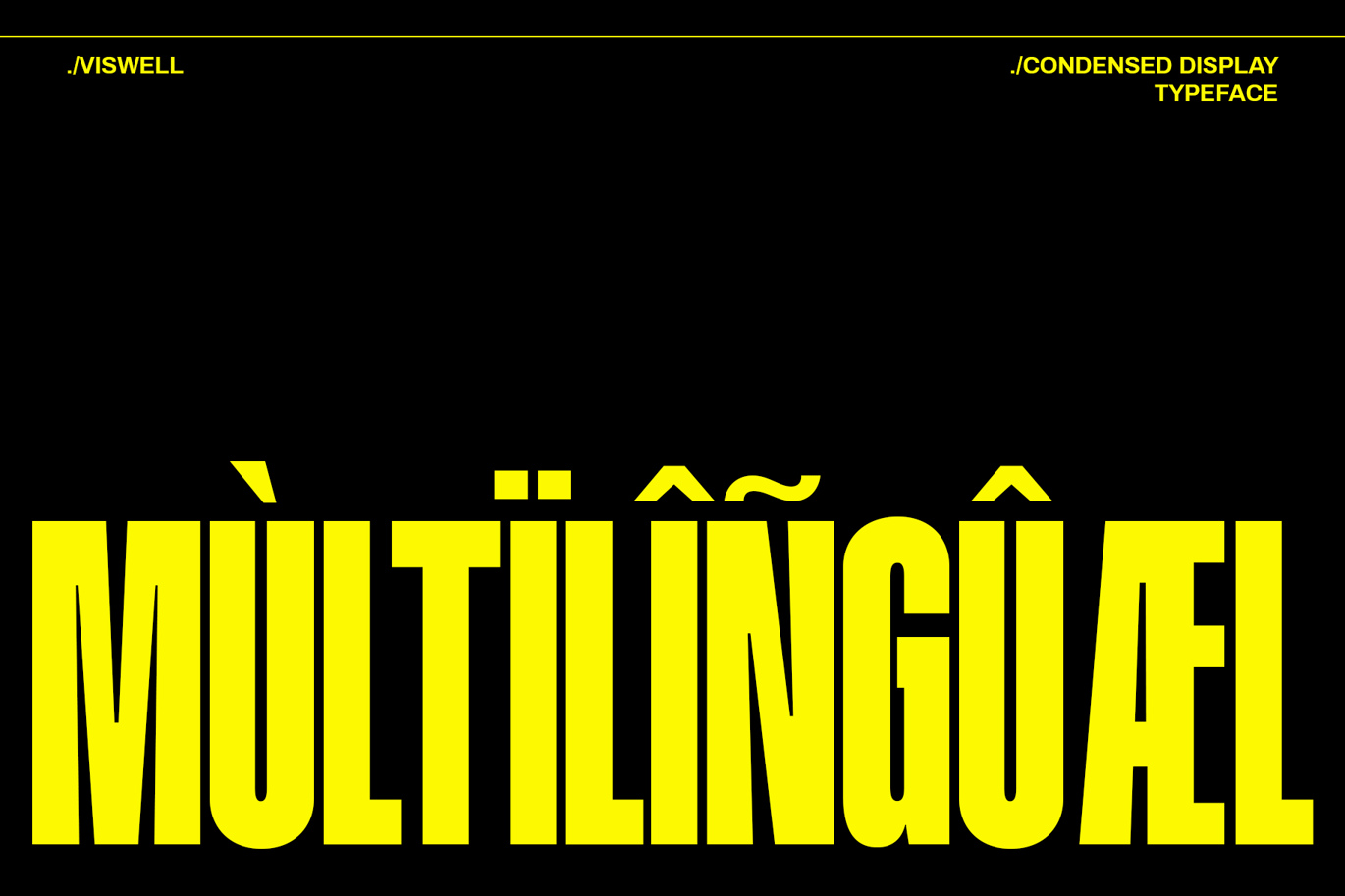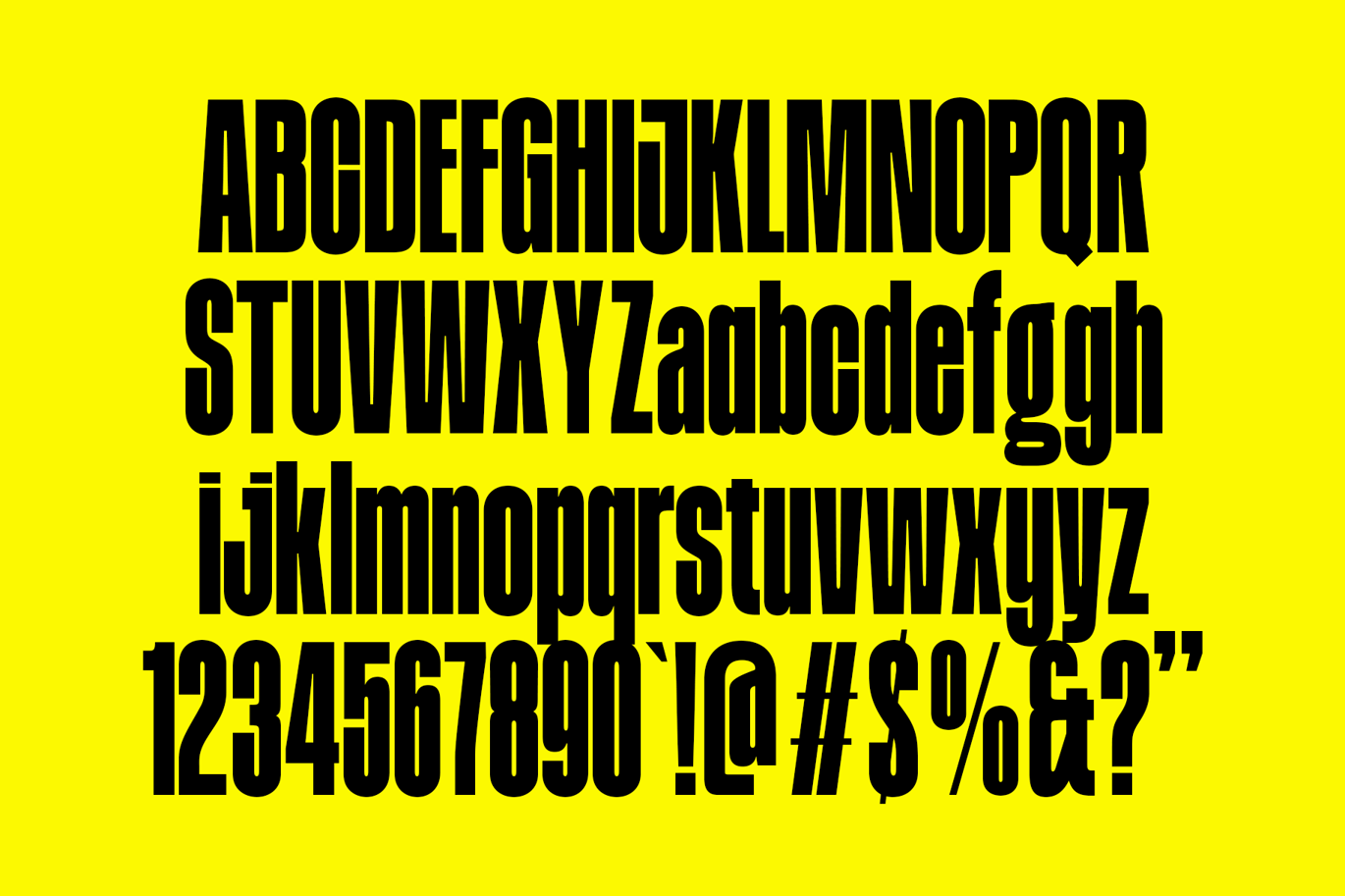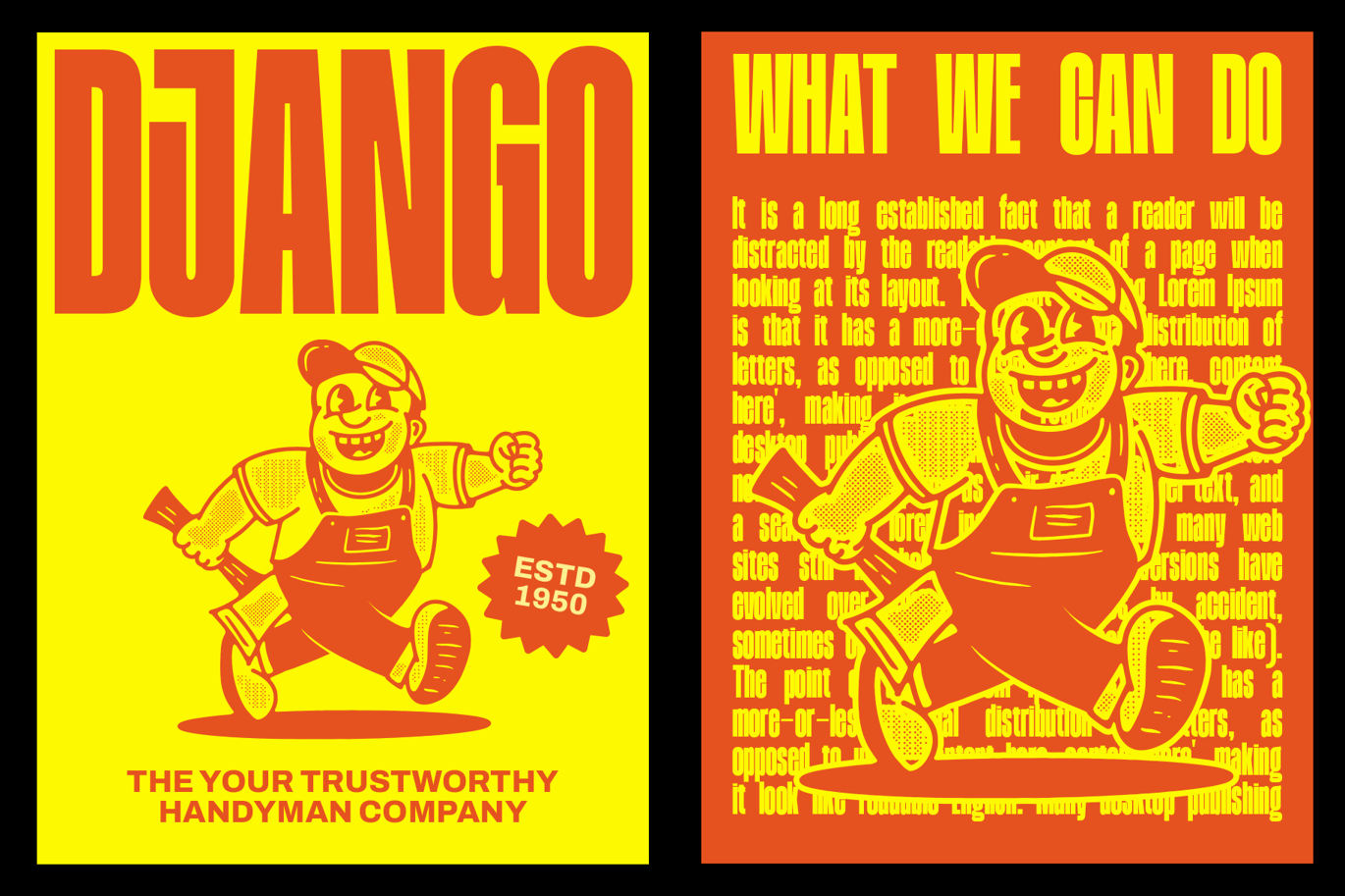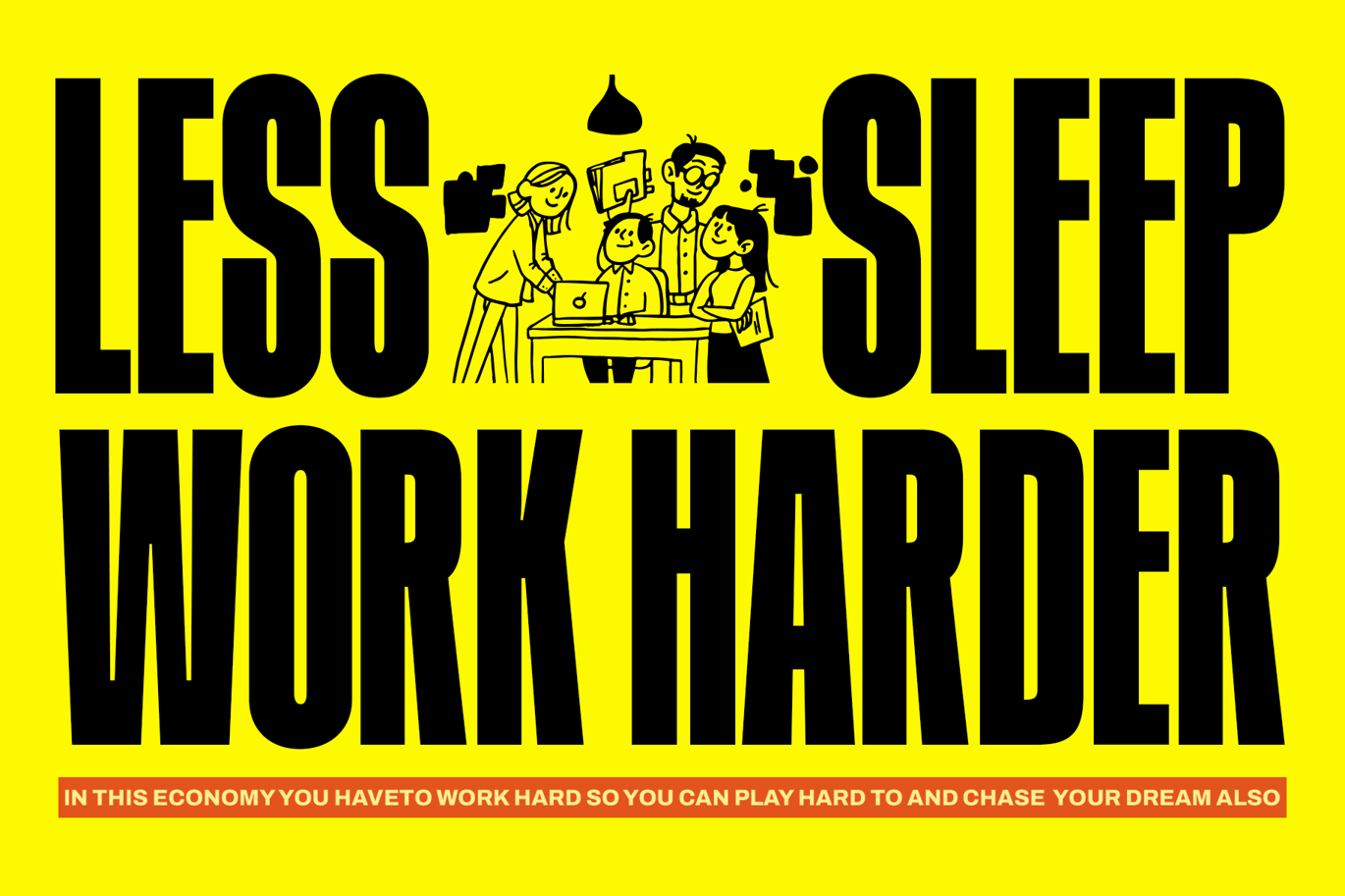
Djingo Font
Bold, unapologetic, and built for impact — Djingo is a condensed display font that demands attention. Its towering, block-like structure with sharp edges and confident spacing makes it the perfect choice for striking headlines, poster designs, branding, and digital campaigns. With its condensed proportions, Djingo allows you to say more with less space, delivering maximum presence without sacrificing clarity.